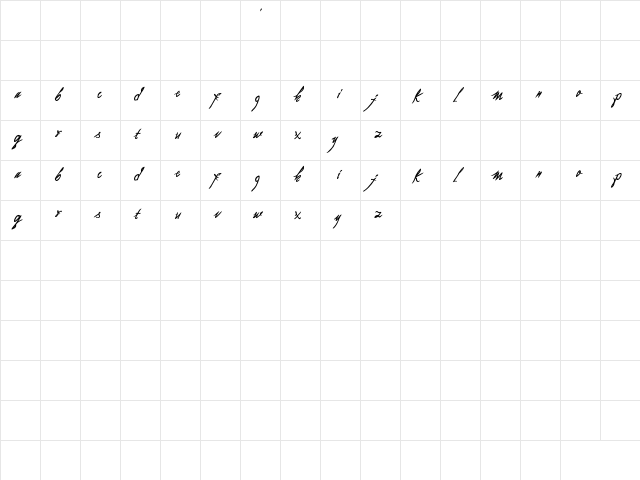
as i lay dying Regular Font Preview
as i lay dying Regular
Design Context for as i lay dying Typeface
as i lay dying is a composed and adaptable typeface that performs quietly and consistently across a wide range of design contexts.